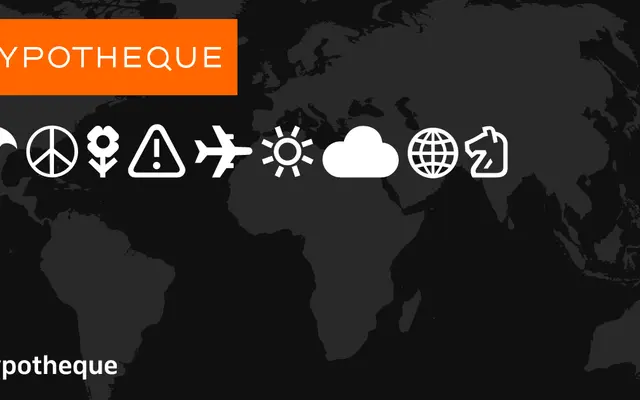
Greta Symbol specimen from Typotheque
A ten-weight symbol typeface extending the Greta family with a comprehensive set of pictographic glyphs spanning weather, travel, nature and other universal icons.
Part of Typotheque's Greta family, this symbol typeface provides a unified visual vocabulary of pictograms across ten weights from Hairline to Black. The weight range allows symbols to be matched precisely to accompanying text weights, maintaining visual consistency across layouts. Named sub-families correspond to individual weights, each identified by a world city name from Amsterdam through to Jerusalem.
A symbol and dingbat typeface containing pictographic glyphs rather than letterforms, spanning ten weights from Hairline to Black. Classified as display given its purely pictographic nature and use as a supplementary symbol system.